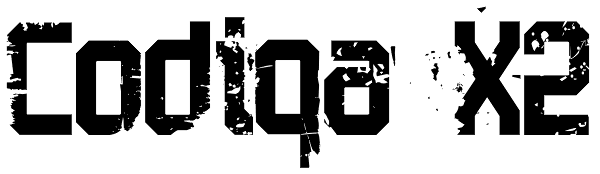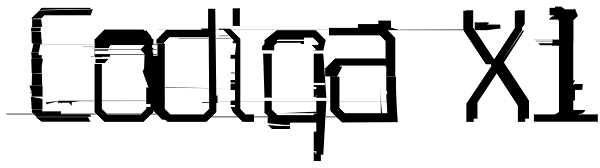
Codiga
Codiga is perfect for titles and badges that need to show a futurist and space sensation. Its angles formed by straight lines and its san serif monolineal design allows its solid and rigid shapes stress its industrial and technology Look. Codiga...